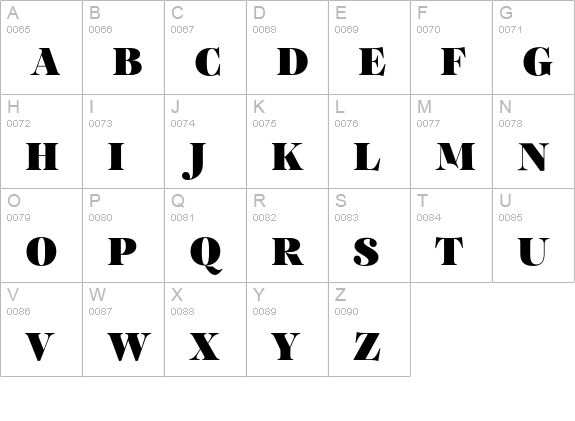
PFRegalDisplayPro-UBlack Font Details
PFRegalDisplayPro-UBlack is a stunning and elegant font that exudes sophistication and class. With its bold and powerful appearance, this typeface is perfect for making a bold statement in headlines, titles, and branding materials. The ultra-black weight of this font adds a sense of drama and impact to any design it is used in. What makes PFRegalDisplayPro-UBlack even more appealing is that it is available for free download at FontsMarket.com. This means you can easily access and use this premium font in your projects without any cost. Whether you are working on a print design, website, or any other creative project, PFRegalDisplayPro-UBlack is sure to elevate the visual appeal and make a lasting impression. Download this font now and add a touch of luxury to your designs.